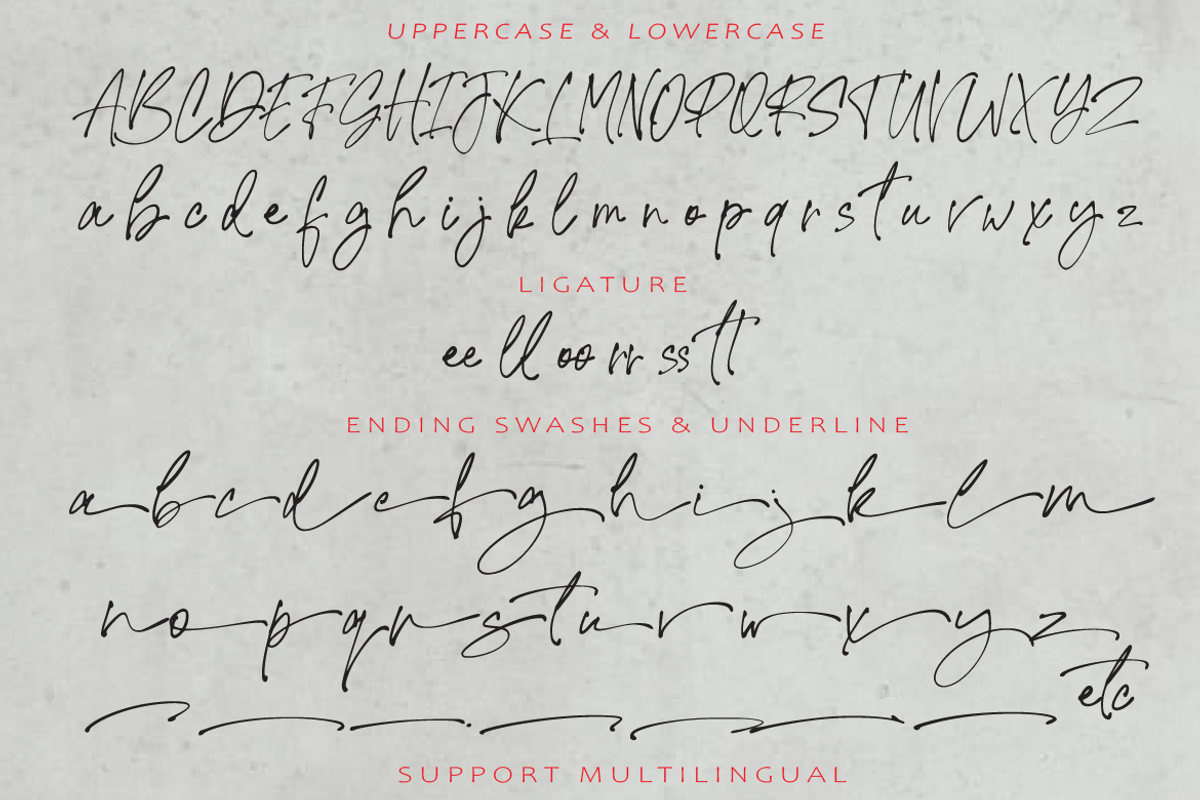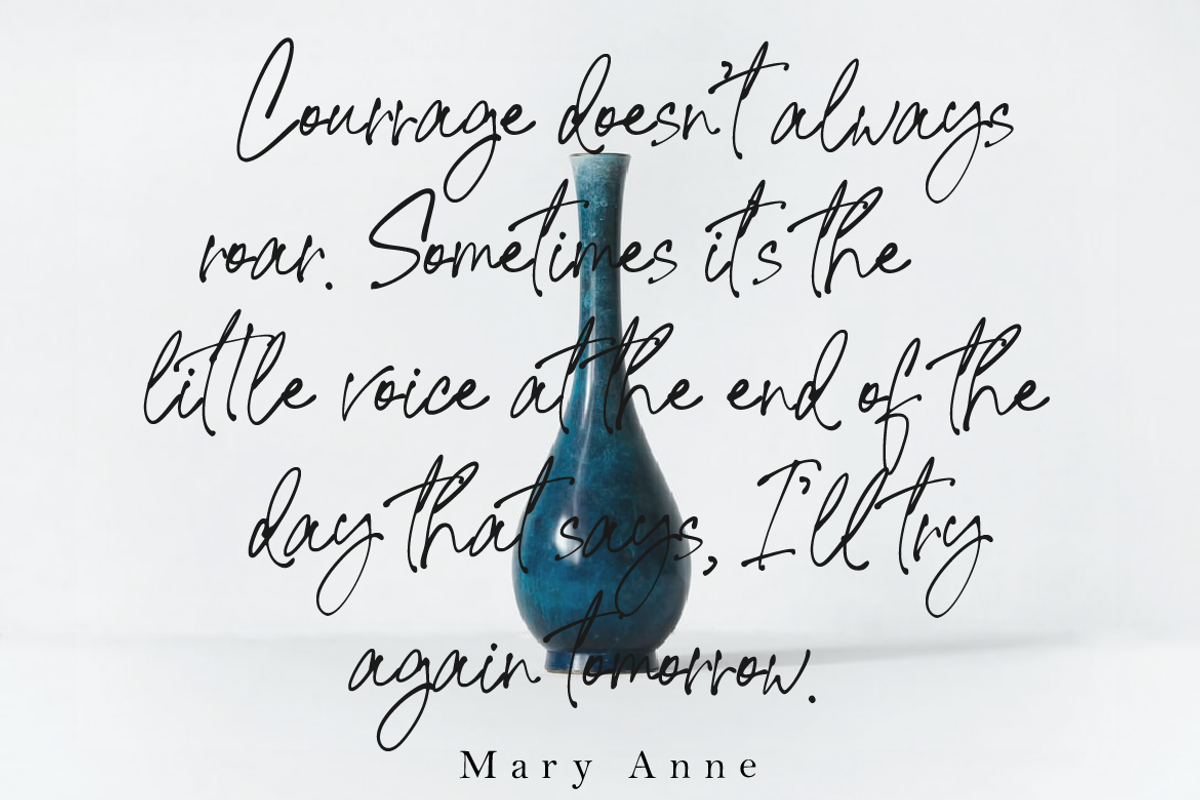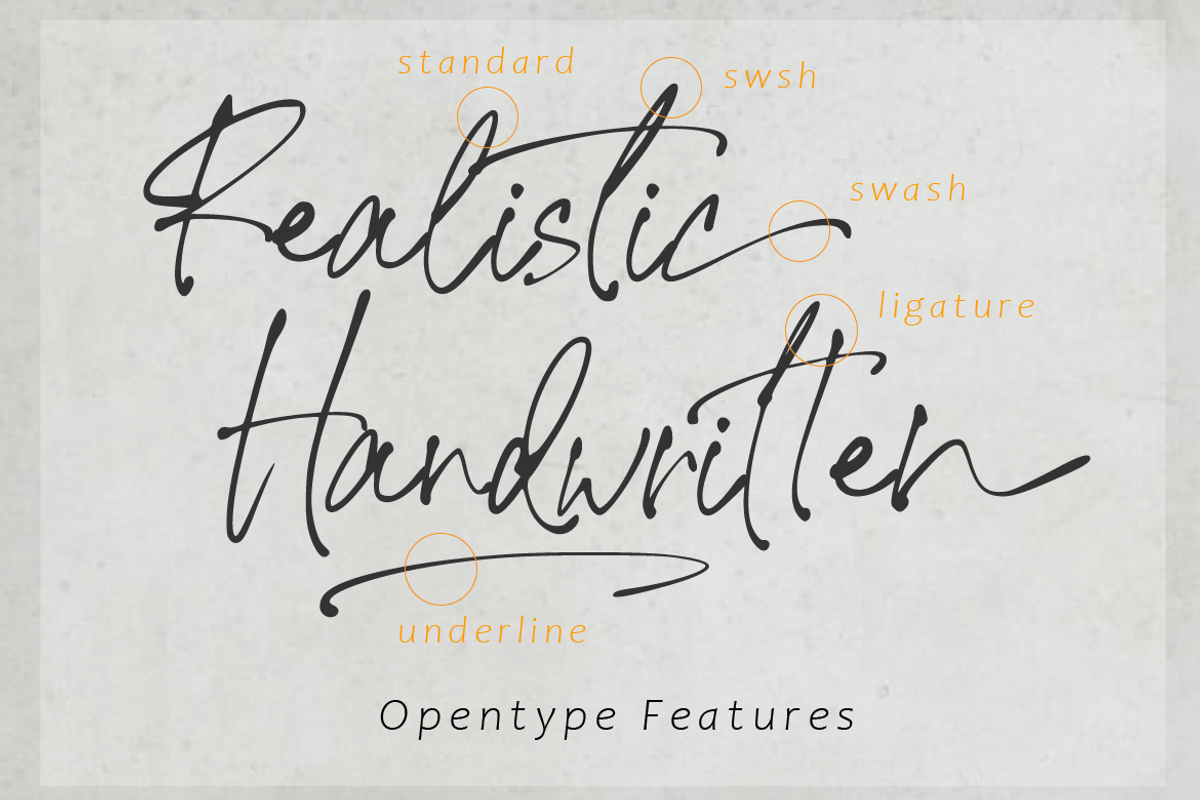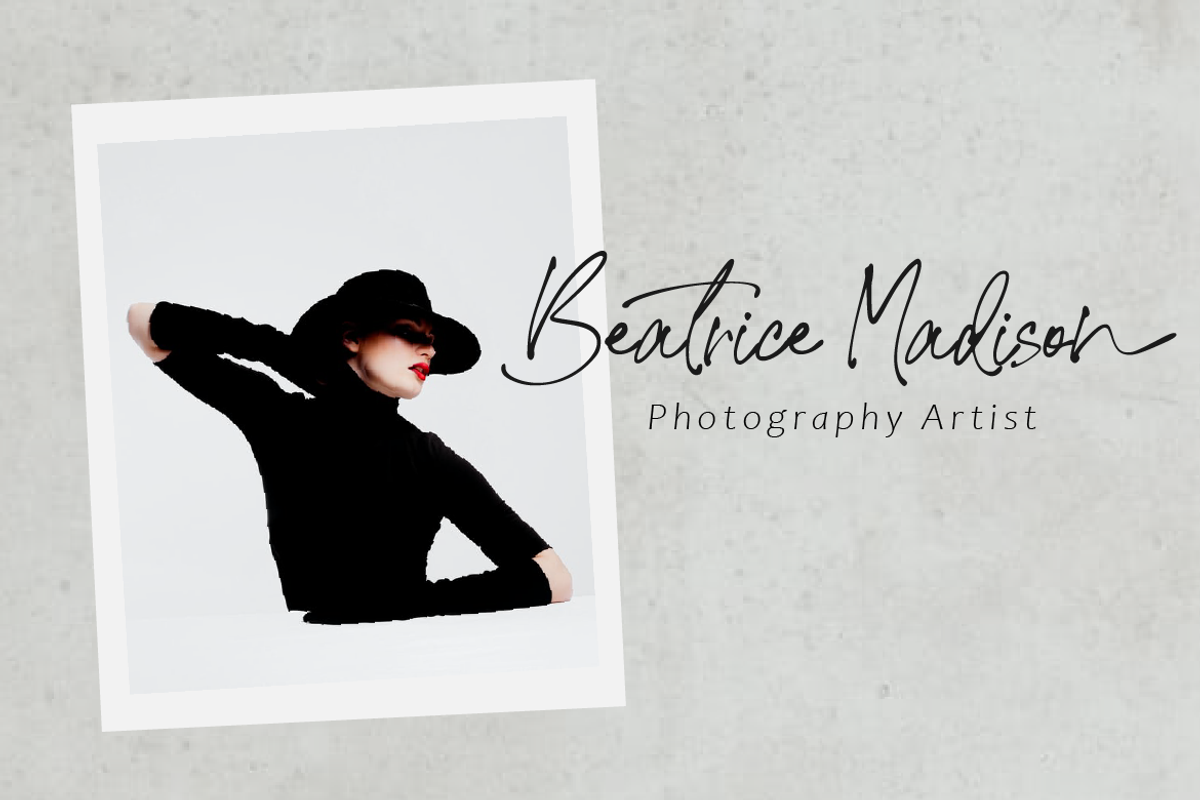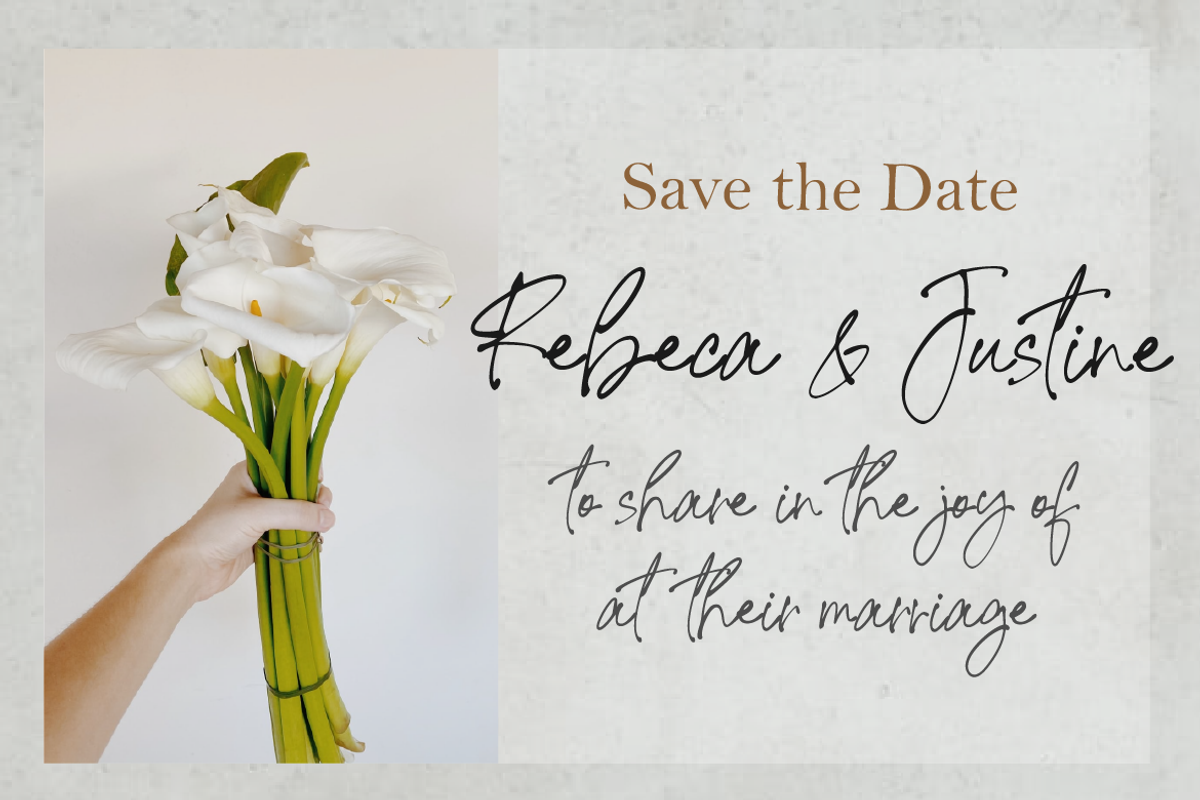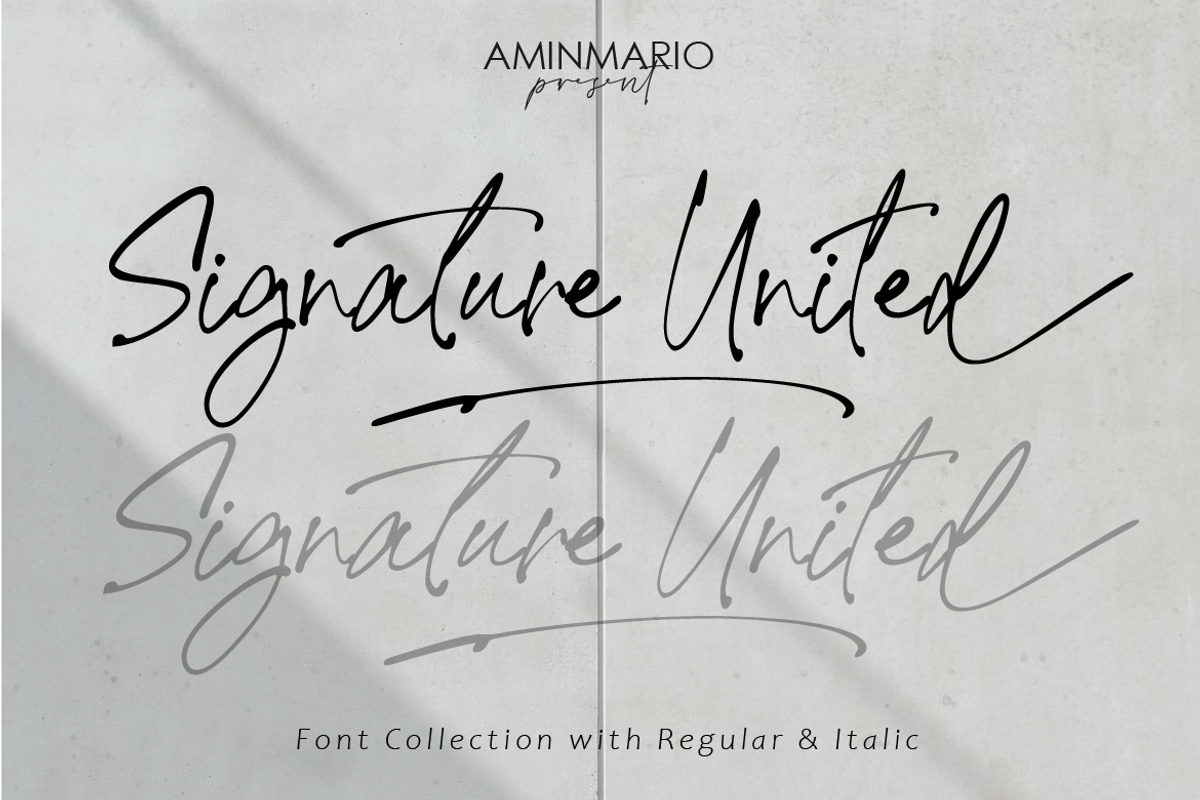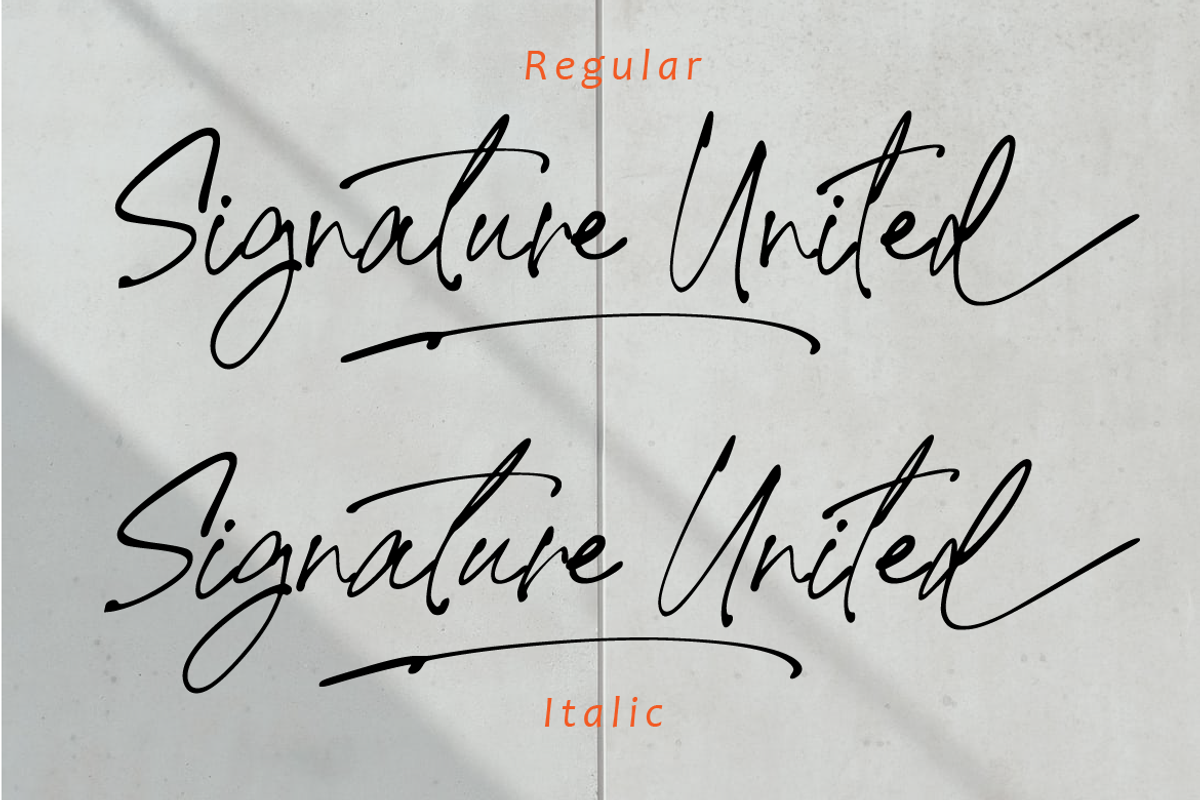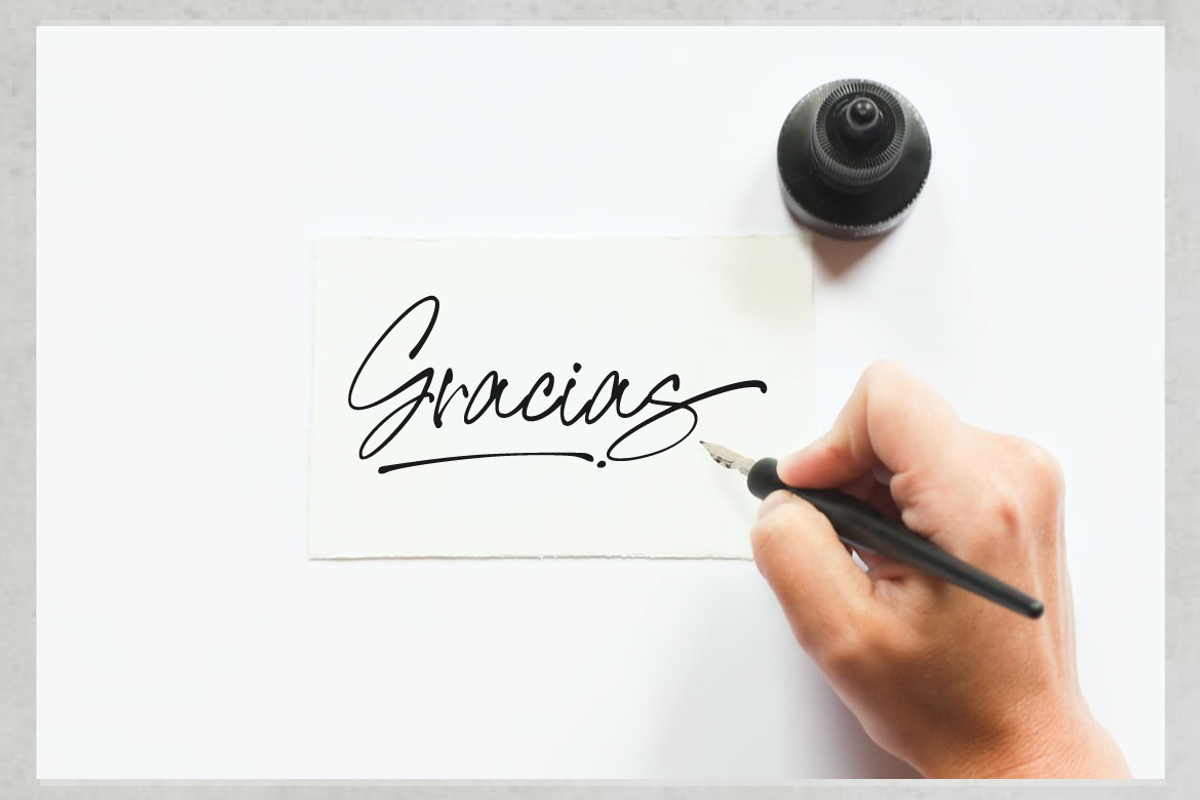
Signature United
Introducing
Signature United Font
This font was created to look as close to a natural handwritten script as possible by including lowercase swash, ligature and underlines. Perfect for any awesome projects that need hand writing taste.
Comes with regular and italic. Built in Opentype features, this script comes to life as if you were writing it yourself. Also support multilingual.